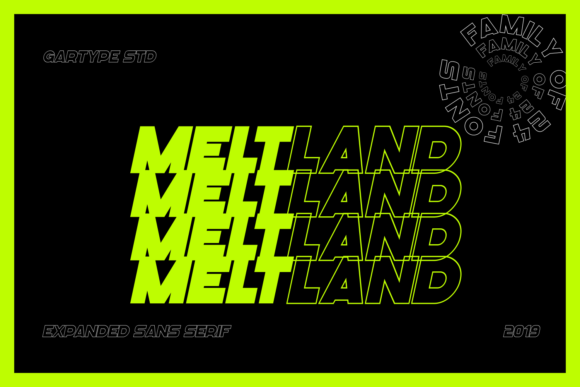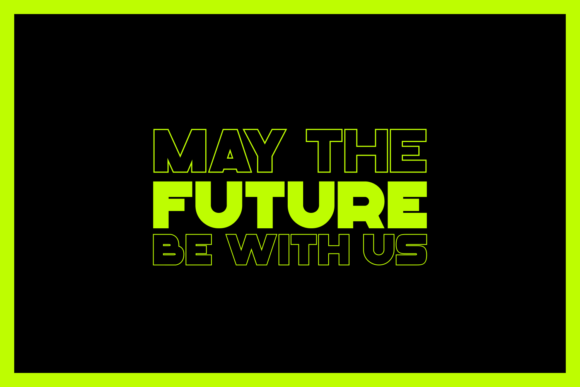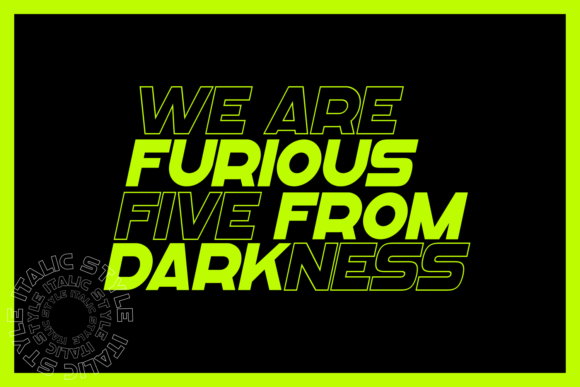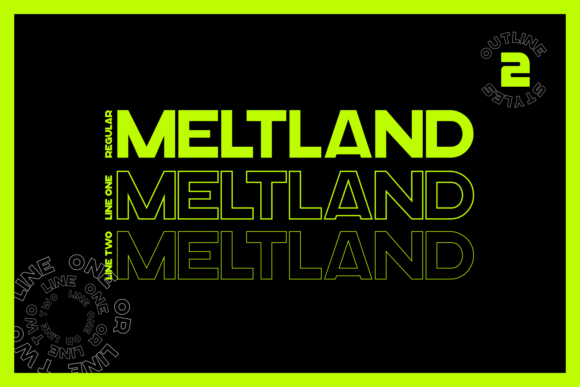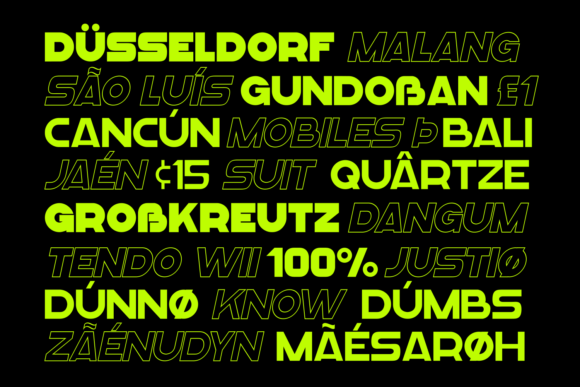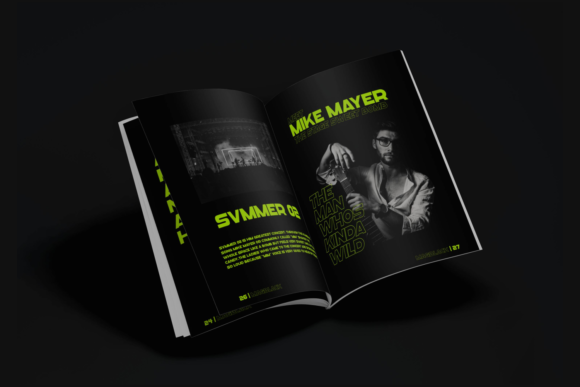
Introduction to Meltland Font
Meltland is a font directly from the future.
It will make your design projects look lightyears ahead .
Key Features of Meltland Font